I think this guide helps you understand serif font examples in a simple way so we learn what serif fonts are and how we use them to create readable and professional designs
I think serif fonts are one of the most important font styles we see every day. When I first started learning about fonts I did not understand why some text feels easy to read and some feels hard. After some time I noticed that many books, websites and documents use serif fonts. That is when I started learning about serif font examples and how they work.
I want to explain everything in a very easy way so even a young student can understand it. We will talk about what serif fonts are, why they are used where we see them and how we should use them in our own work. This guide is based on my real experience and simple learning so you do not feel confused.
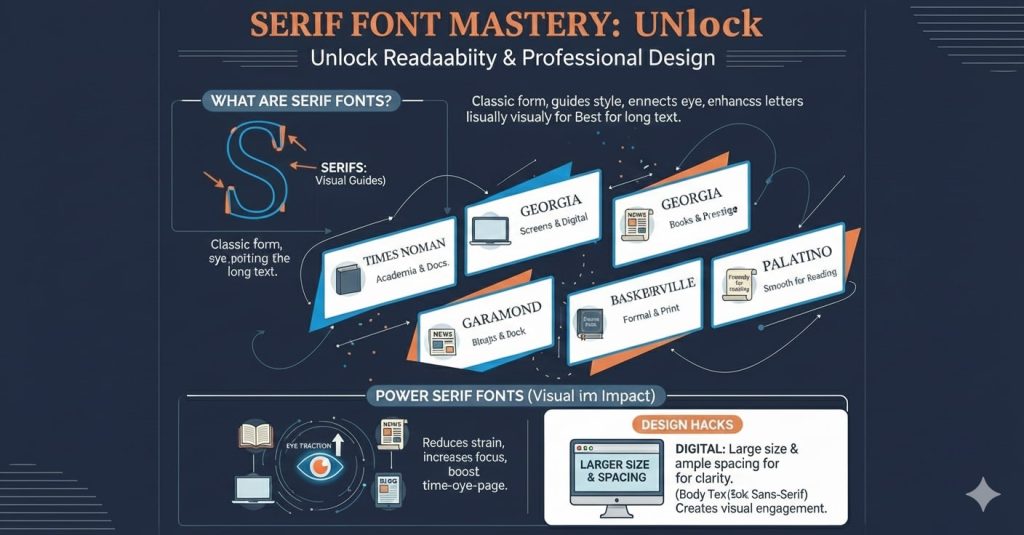
What Is A Serif Font
I think a serif font is a font that has small lines at the end of letters. These small lines make the text look classic and clear. When we read long text our eyes follow these lines easily.
If you look at books, newspapers or school material you will see serif fonts used a lot. That is because they are comfortable to read.
Why Serif Fonts Are Important
I think serif fonts are important because they help people read text without stress. These fonts guide the eyes from one letter to another.
We should use serif fonts when We want clear reading We write long content We design formal work We create books or articles
If our goal is readability then serif fonts are a strong choice.
Common Serif Font Examples
I think learning examples helps us understand better.
Times New Roman
This is one of the most famous serif fonts. We see it in school work books and documents.
Georgia
Georgia is clean and easy to read even on screens.
Garamond
This font feels classic and elegant. It is often used in books.
Baskerville
Baskerville looks sharp and professional.
Palatino
Palatino is smooth and friendly for long reading.
These are common serif font examples that we see around us.
Where We Use Serif Fonts
I think serif fonts work best in these places.
Books
Most books use serif fonts because they are easy on the eyes.
Blogs And Articles
Long articles feel comfortable with serif fonts.
Education Material
School books and study notes use serif fonts.
Print Design
Newspapers, magazines and reports often use them.
How Serif Fonts Help Reading
I think serif fonts help reading because the small lines connect letters visually. This helps the brain read faster.
If text is long then serif fonts reduce eye strain. That is why they are used in books.
My Personal Experience With Serif Fonts
I think personal experience matters. When I wrote my first long article I used a simple font.
Then I switched to a serif font. People stayed longer on the page. They said reading felt smooth. After that I started using serif fonts for long content.
How We Should Choose The Right Serif Font
I think choosing the right font is important.
We should check Is it easy to read Is it clear on screen Does it fit the topic Is it not too fancy
Serif Fonts For Beginners
I think beginners should start with simple serif fonts.
Times New Roman Georgia Garamond
These are easy and safe choices.
Serif Fonts And SEO
I think design affects user behavior. When text is easy to read people stay longer.
Longer stay Better engagement Better trust
This helps content perform better.
Serif Fonts In Digital World
I think serif fonts still work in digital content if used correctly.
Use larger font size Use clean layout Use proper spacing
Then serif fonts look great on screens.
How To Mix Serif Fonts With Other Fonts
I think mixing fonts is useful.
Use serif font for body text Use simple font for headings
This creates balance.
Are Serif Fonts Free
I think many serif fonts are free. Some are paid.
We should always check licenses before using fonts for business work.
Why Students Should Learn Serif Fonts
I think students should learn about serif fonts because.
They improve reading They help in projects They build design sense
Understanding fonts is a useful skill.
FAQ
What are serif font examples?
They are fonts with small lines on letters like Times New Roman and Georgia.
Are serif fonts good for reading?
Yes they are very good for long reading.
Can we use serif fonts online?
Yes if font size and layout are good.
Should beginners use serif fonts?
Yes they are easy and safe.
Are serif fonts old style?
They are classic and still very useful.
Conclusion
I think serif font examples help us understand how fonts affect reading and design. We learned what serif fonts are where we use them and how they help readers. If we choose the right serif font and use it correctly our content becomes clear, professional and easy to read.
This guide gives you simple knowledge and real experience so you can use serif fonts with confidence and improve your work.